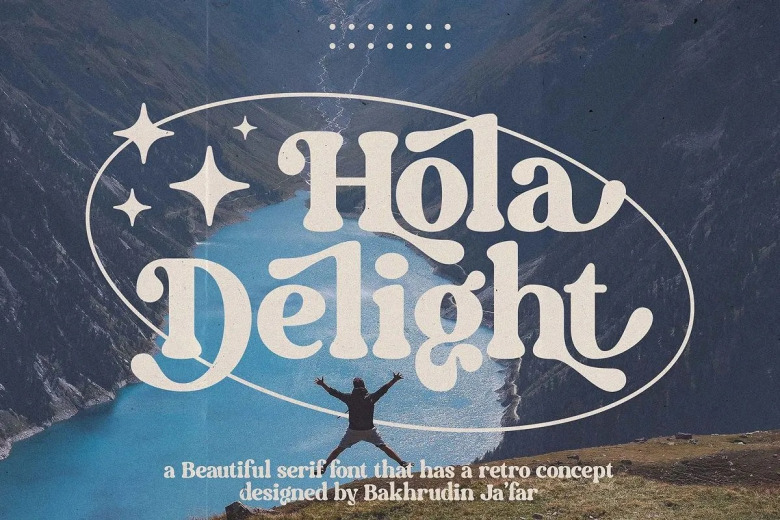
Hola Delight Font
Hola Delight is a vintage and stylish serif font. It has a beautiful and balanced character, that fits well with the large design pool. This font is PUA encoded which means you can access all of the glyphs and swashes with ease.
Hola Delight Serif Font